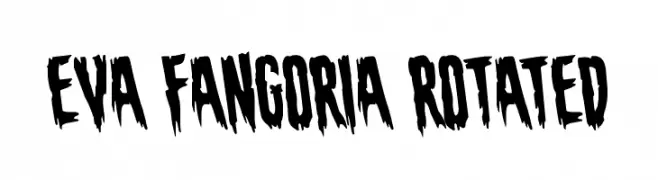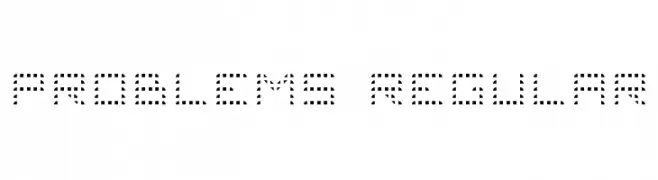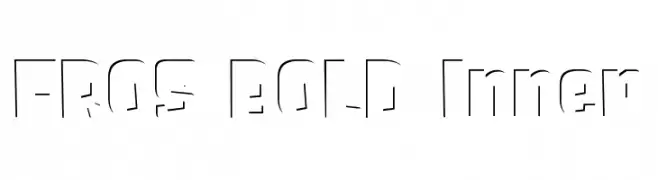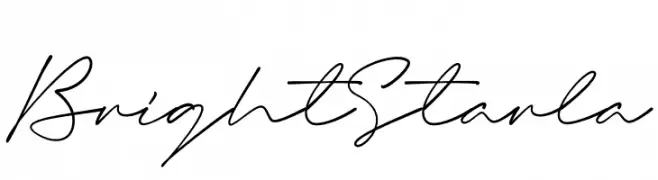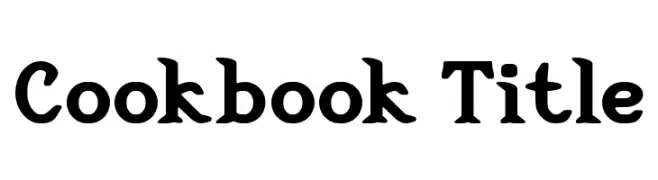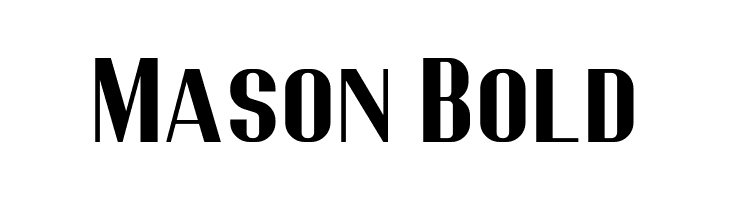
( Adien Gunarta - naraaksara.com )
A modern, geometric font with bold, structured uppercase and cohesive lowercase letters.
A bold, geometric stencil font with strong, angular shapes.
A bold, jagged font with a horror-inspired, dramatic style.
( Jeronimo - Jeroen Kant )
A modern, dotted font with a digital, pixelated style.
( Fonts by DumadiStyle )
A bold, geometric stencil font with sharp, angular lines and cut-out sections.
A dynamic and flowing script font with elegant, cursive letterforms.
( Fonts by Namara Creative )
Elegant cursive script with a handwritten feel.
A bold, playful serif font with rounded serifs and a vintage charm.
A playful, hand-drawn font with a textured, sketch-like appearance.